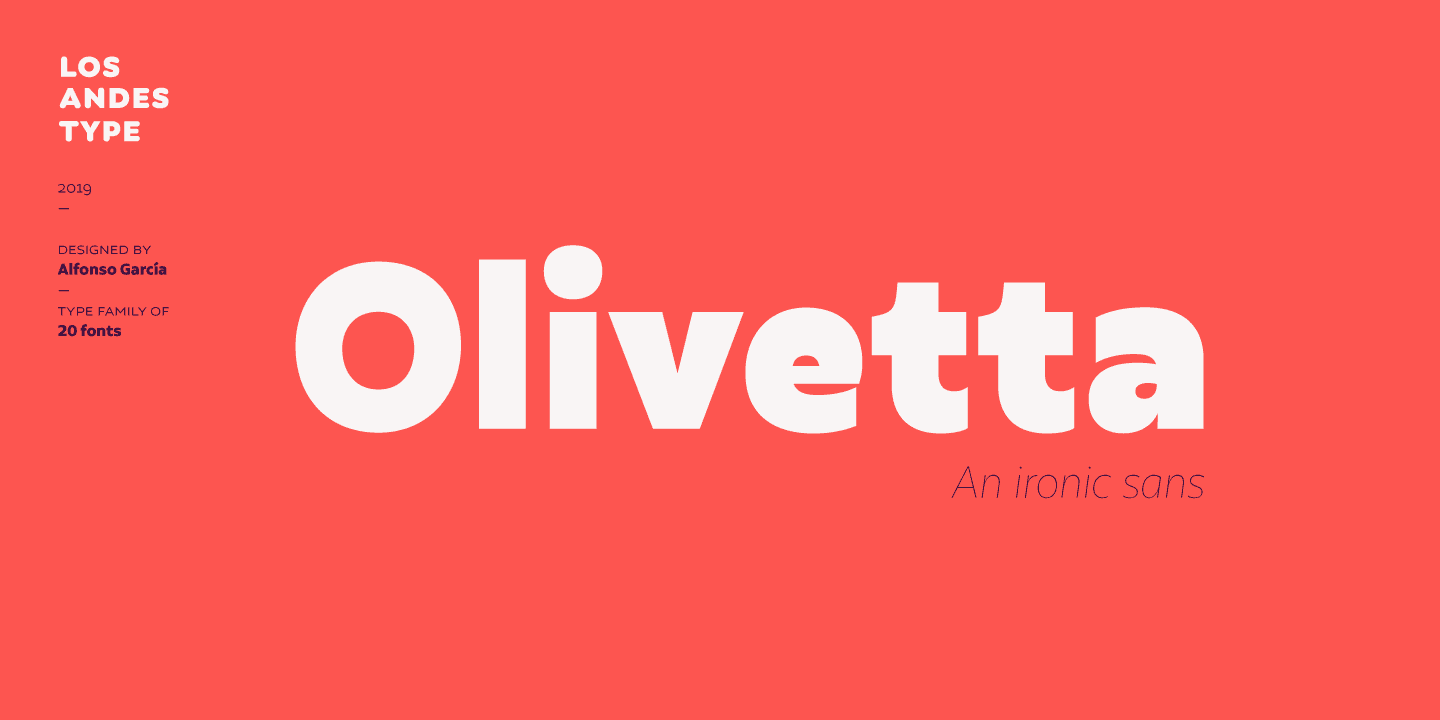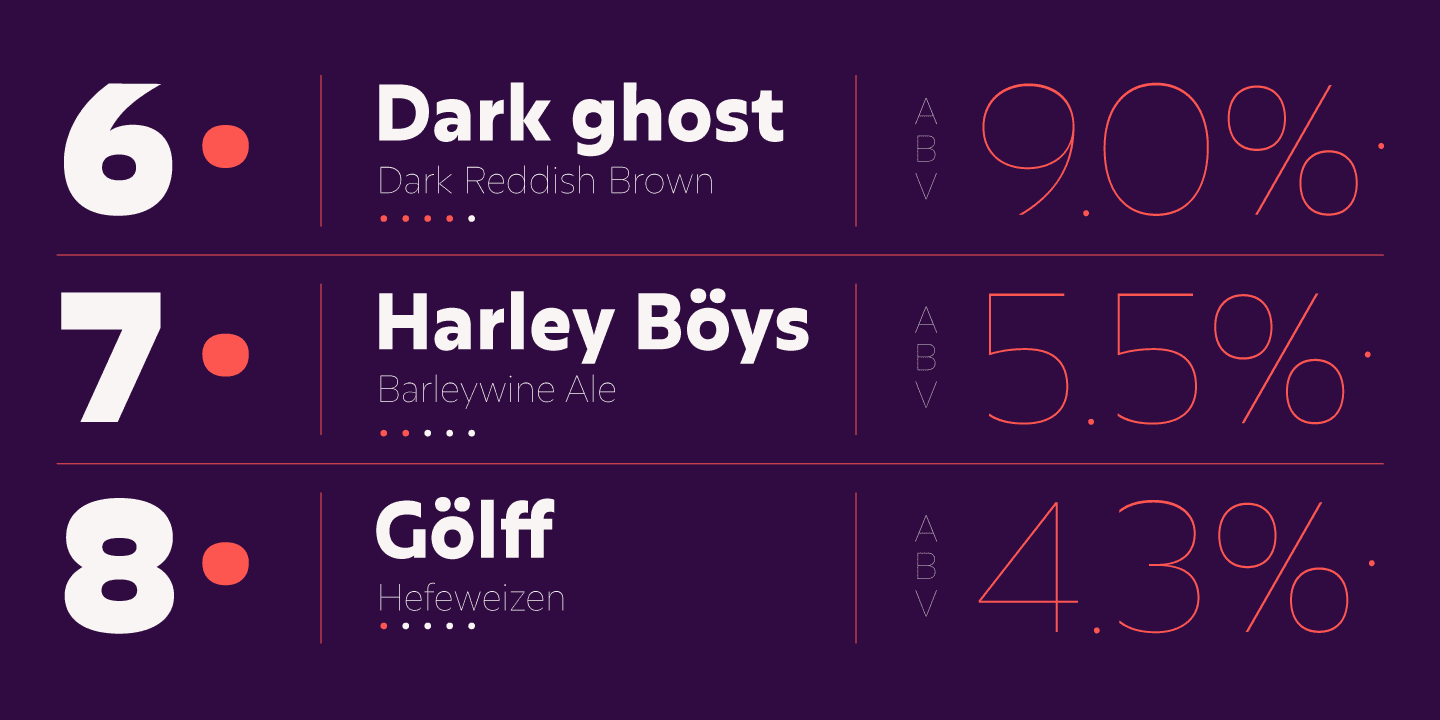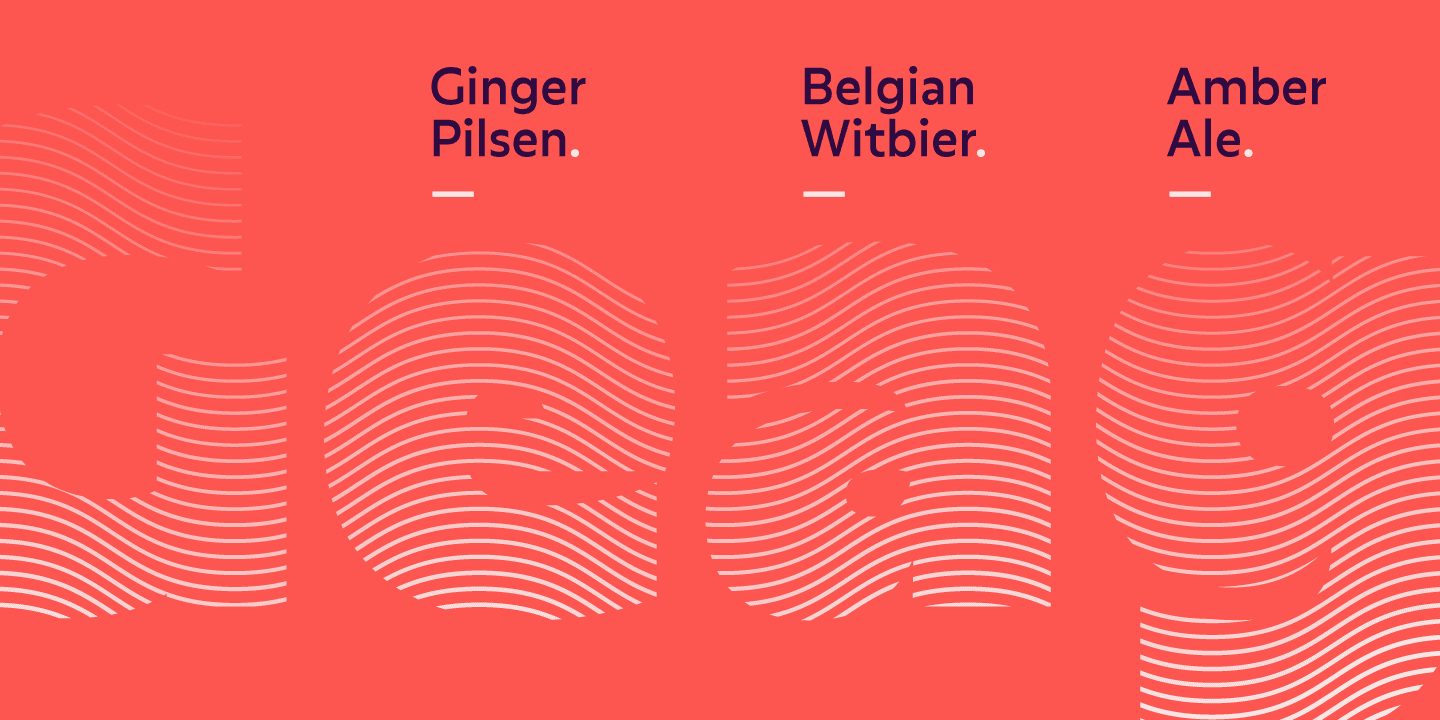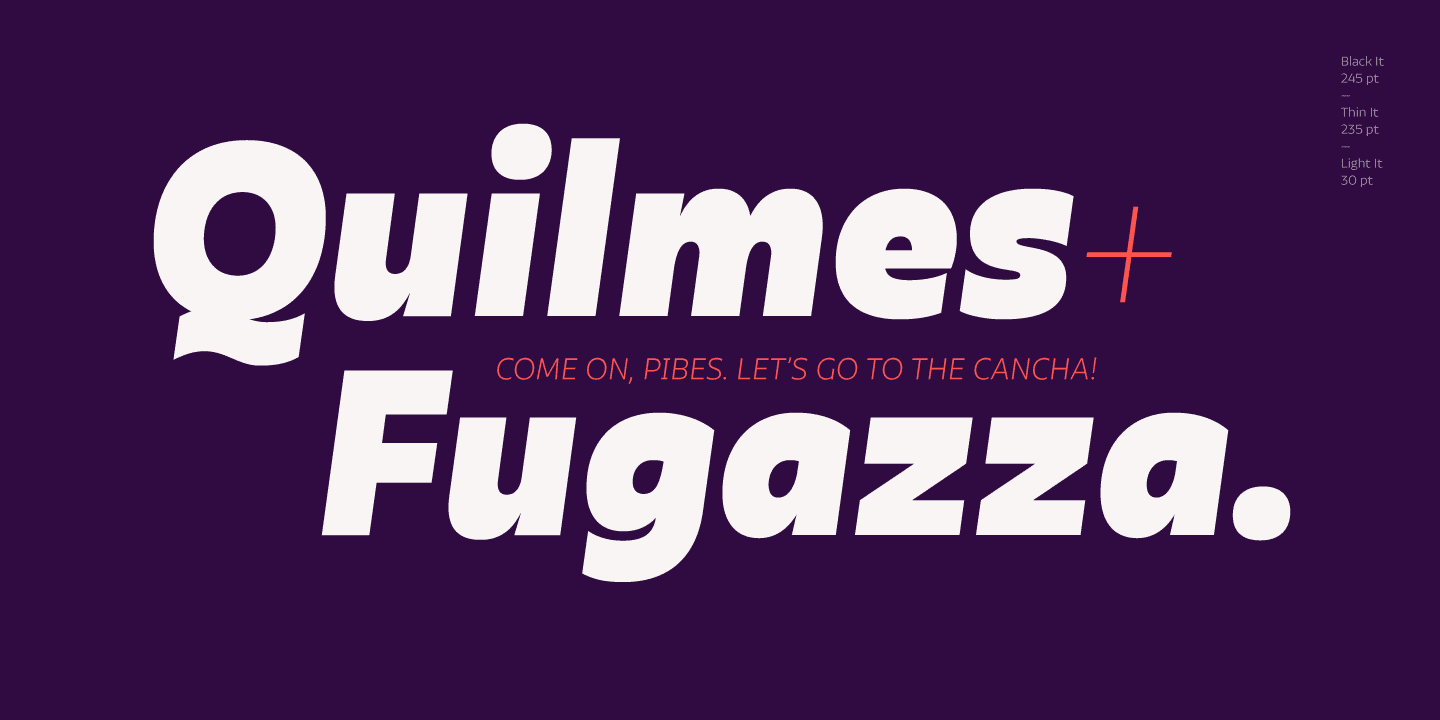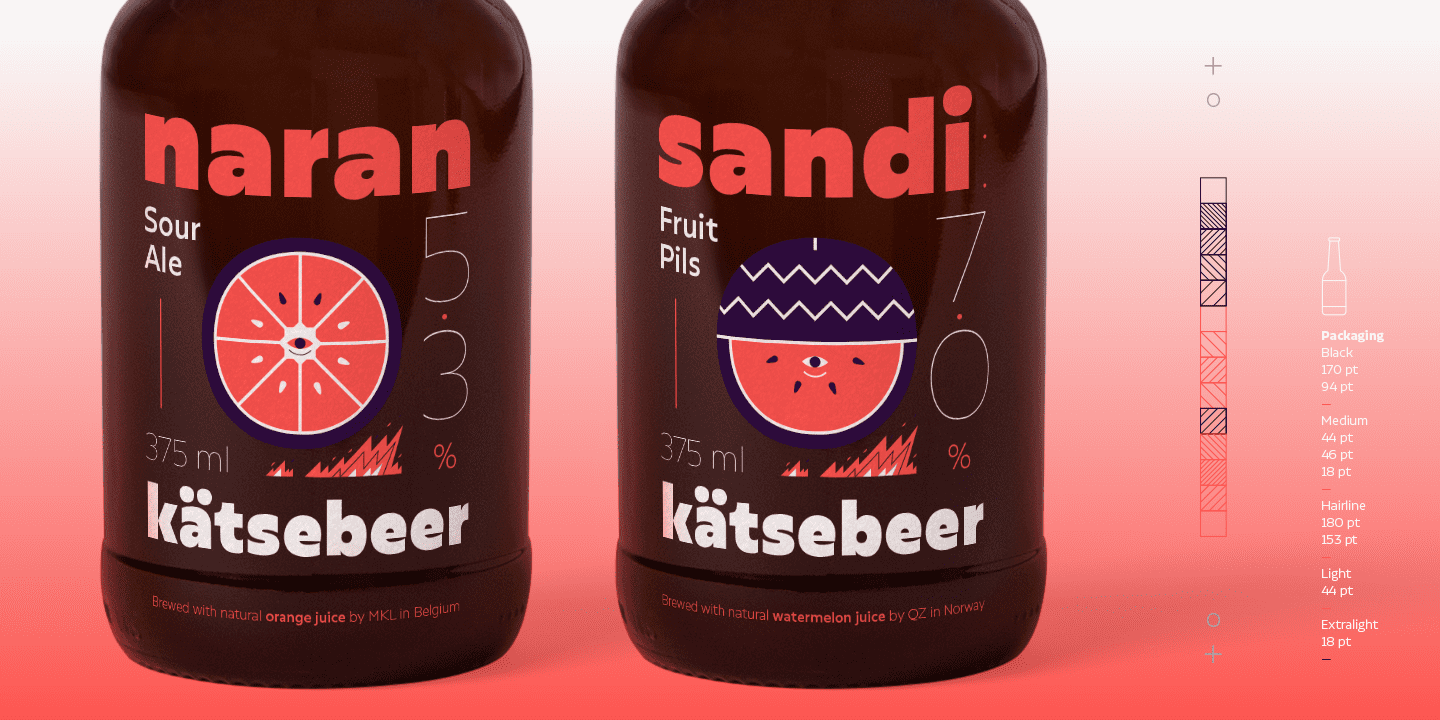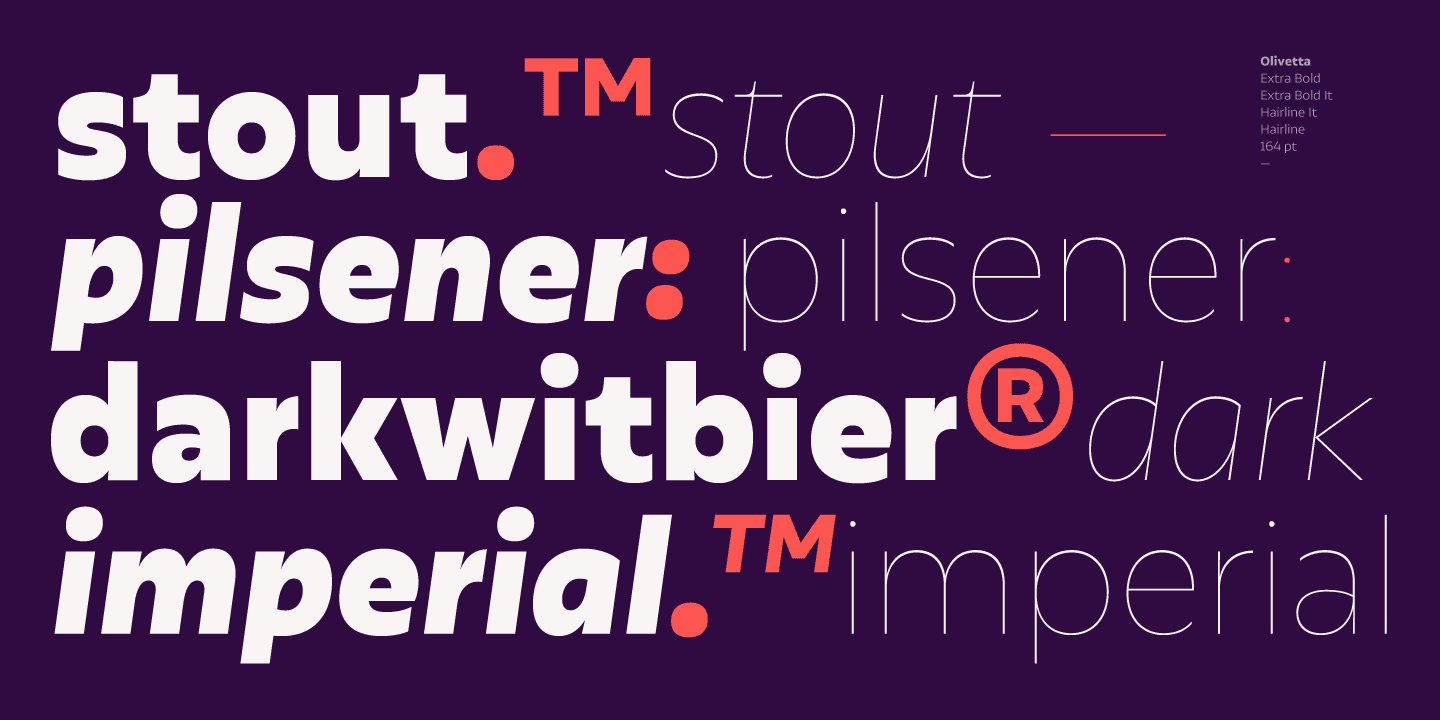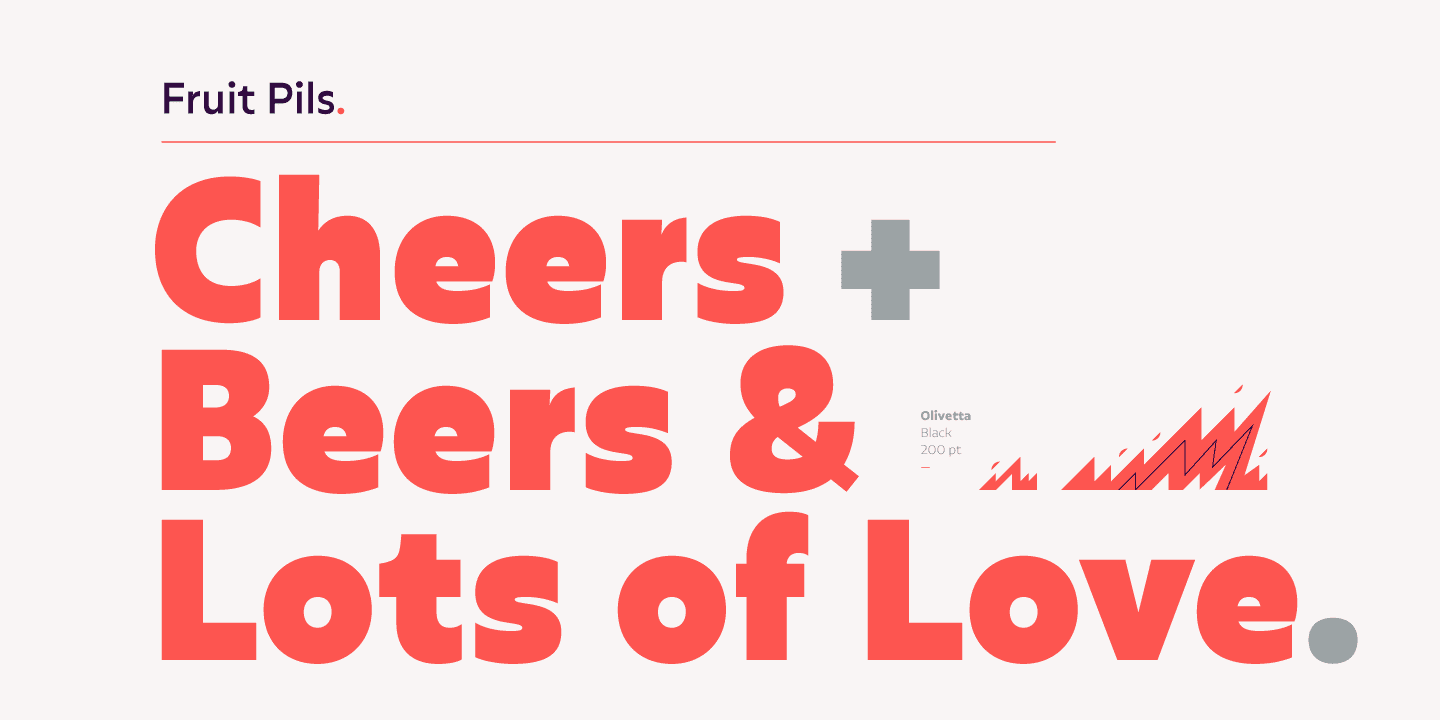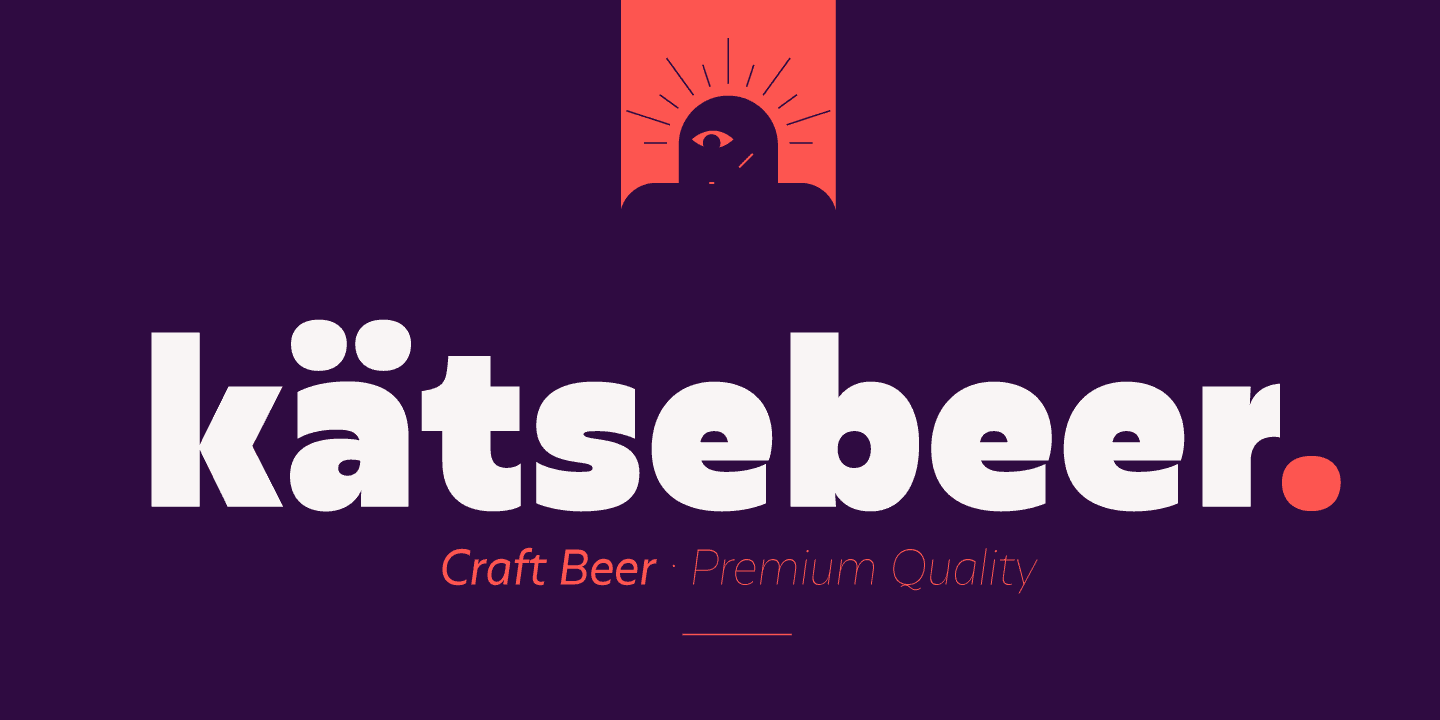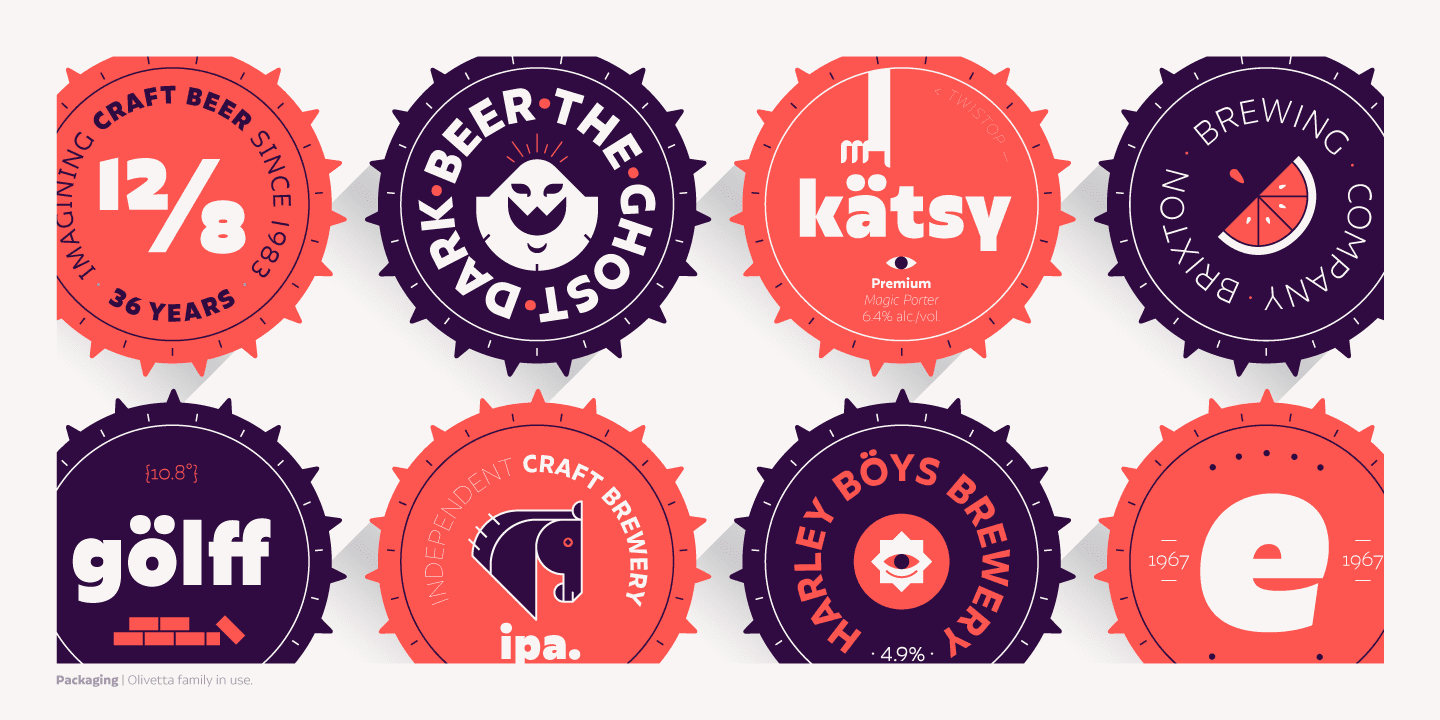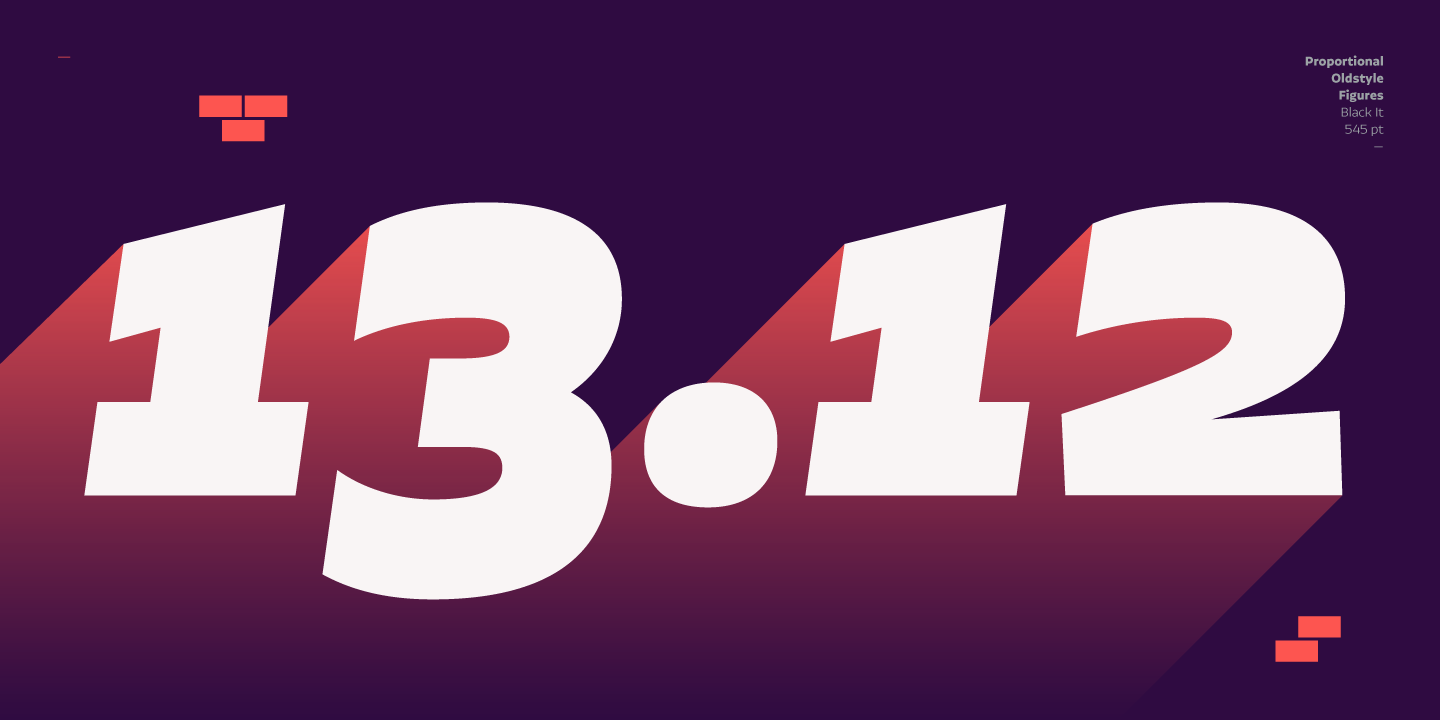
Olivetta—an ironic sans.
Its name is inspired by Antique Olive typeface. These two fonts share a few common design features but Olivetta is more in tune with the spontaneous, ironic style of today's typefaces.
Olivetta illustrates the power of words as images. The high contrast between thick and thin strokes of the lowercase letterforms gives visual strength to the font. The stroke contrast increases as the weights get heavier.
Olivetta comes in 10 weights with matching italics and each style contains more than 400 glyphs which include alternates. The lightest weights work well in subtle headlines while the heaviest ones are perfect for posters, short texts, branding and editorial design. The intermediate weights are ideal for continuous reading.